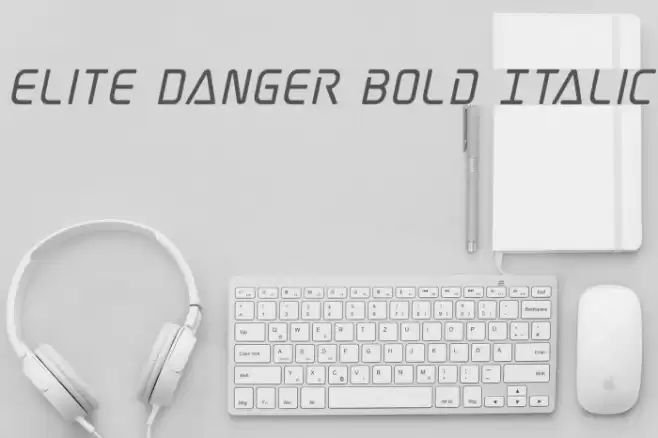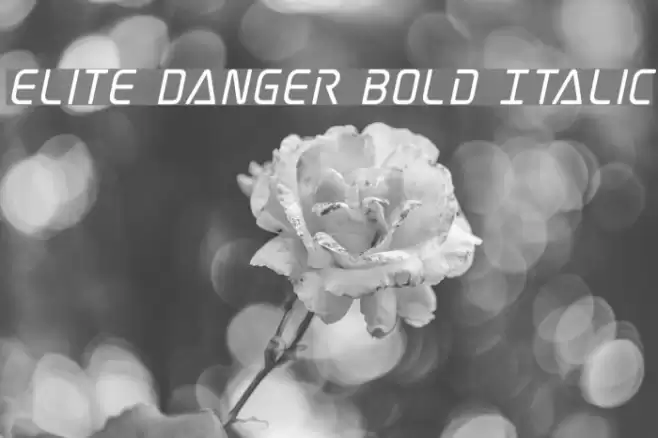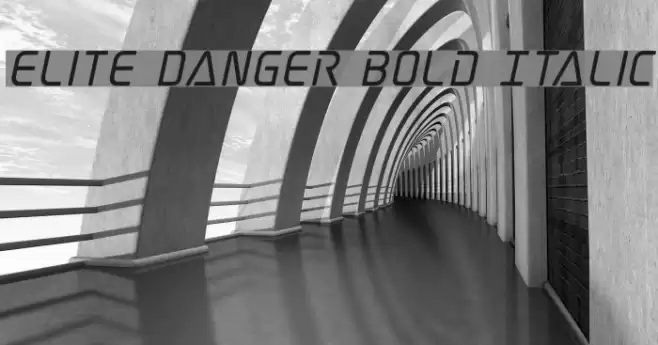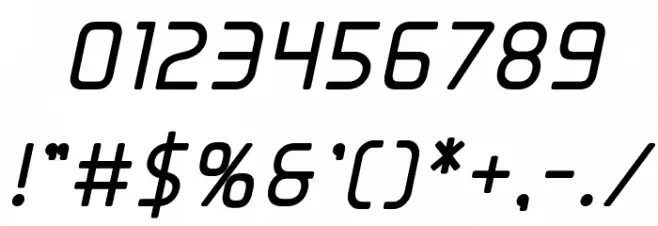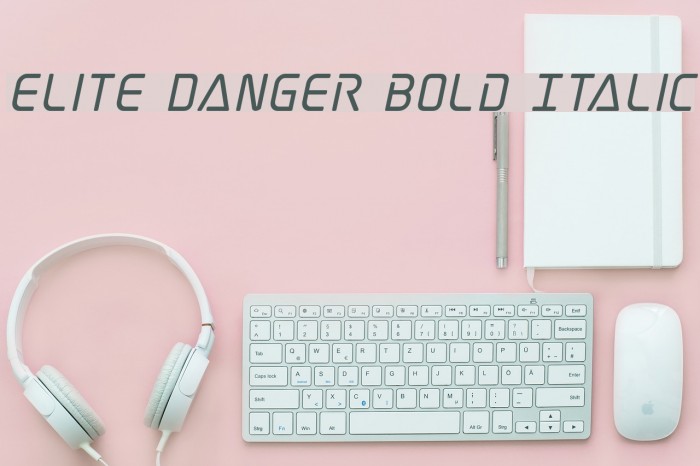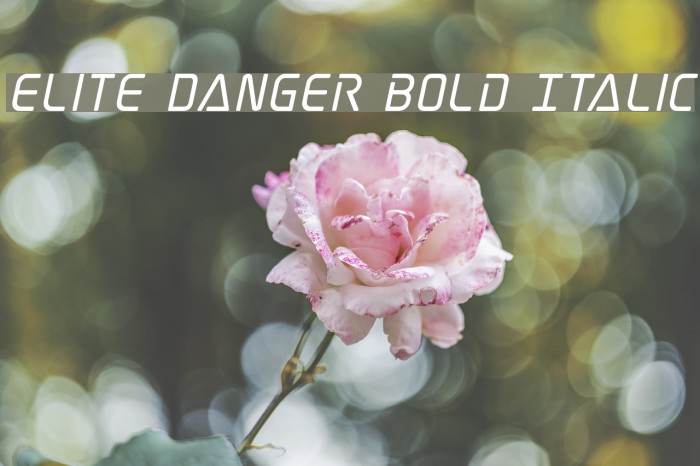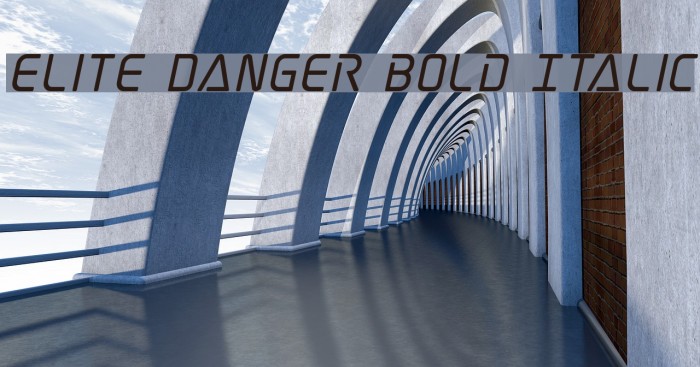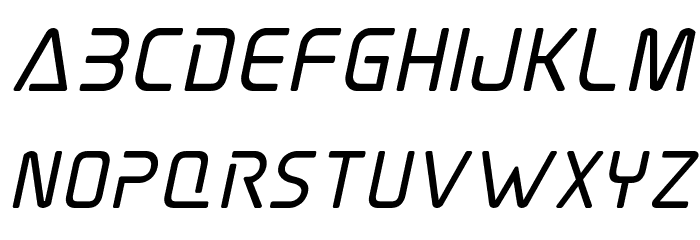
Elite Danger Bold Italic Font
Elite Danger Bold Italic Description
This font features a modern and dynamic design with a bold and italicized style. The characters are slightly slanted, giving a sense of motion and energy. The strokes are consistent in thickness, providing a uniform appearance across all characters. The uppercase and lowercase letters maintain a cohesive look, with rounded edges and a sleek, streamlined form. The numbers and special characters follow the same design principles, ensuring a harmonious overall aesthetic. This font is ideal for projects that require a contemporary and energetic feel.
A bold, italicized font with a modern and dynamic design from Sci-fi fonts.
- Proposed Projects: Ideal for sports branding, tech startups, modern advertising, and dynamic presentations.
- Use Case: Headlines, Logos, Branding